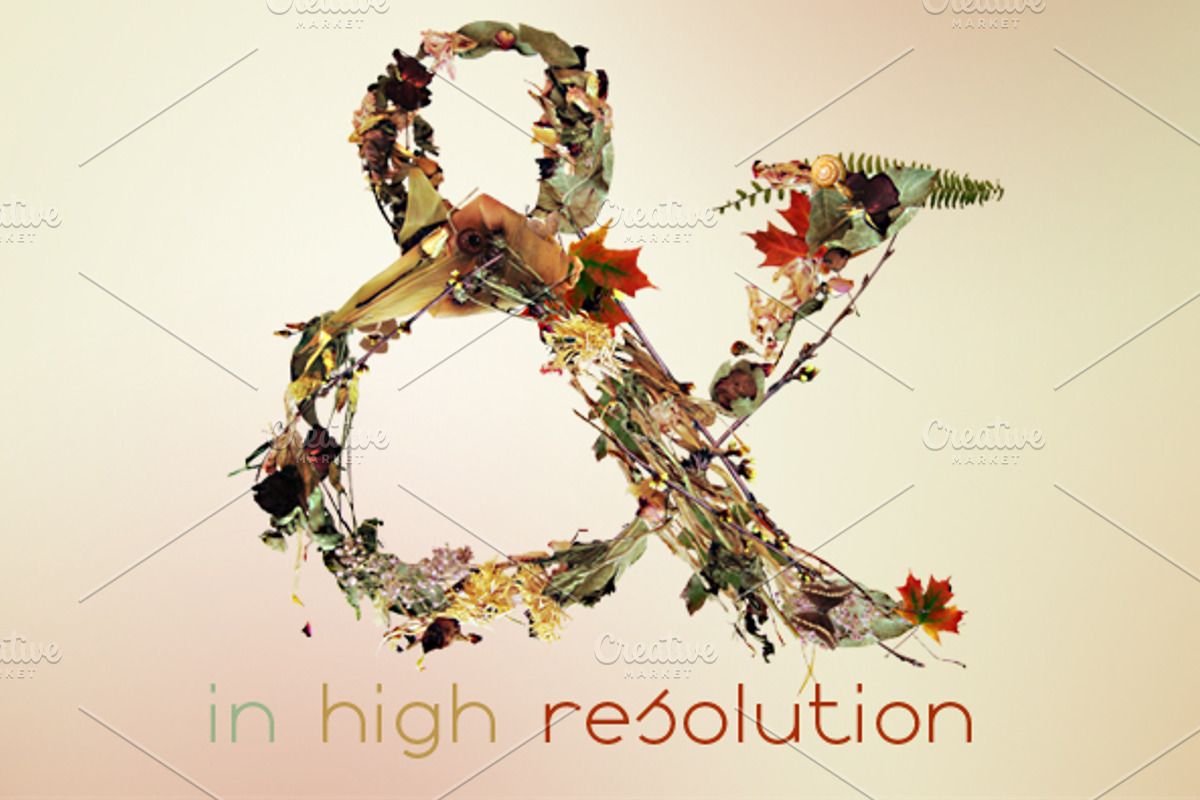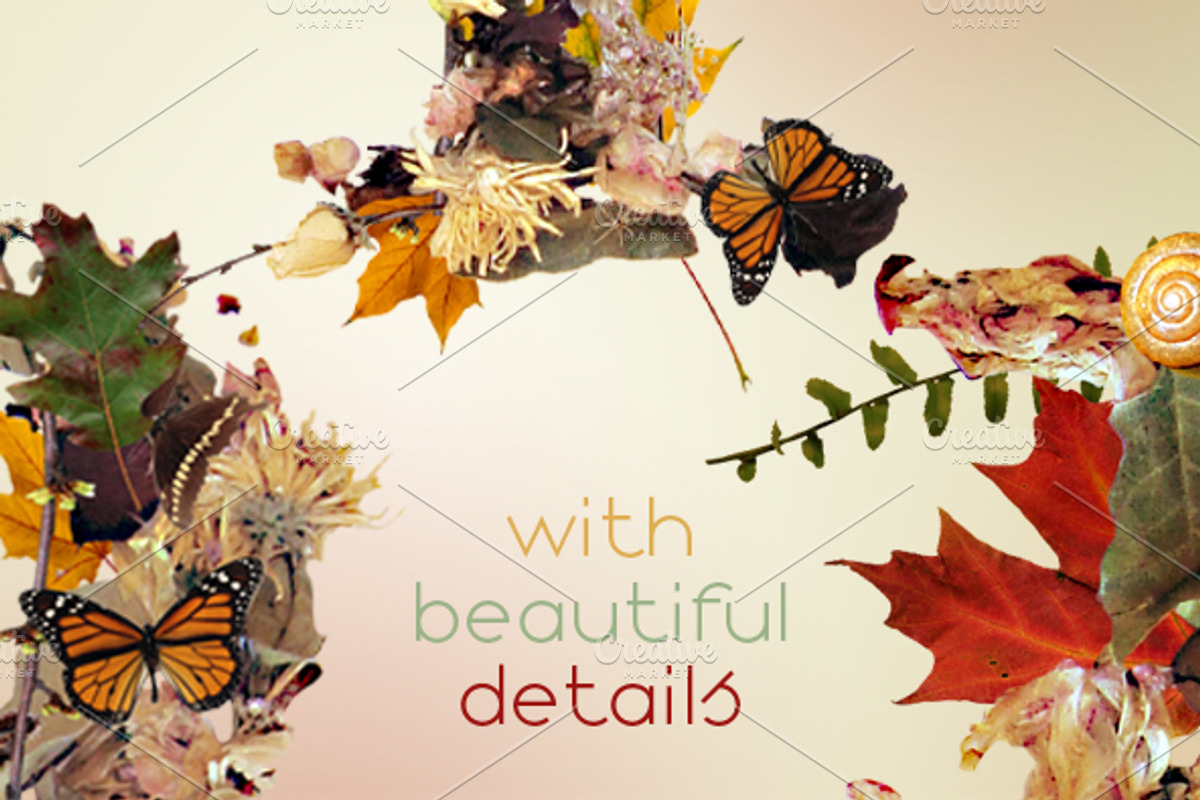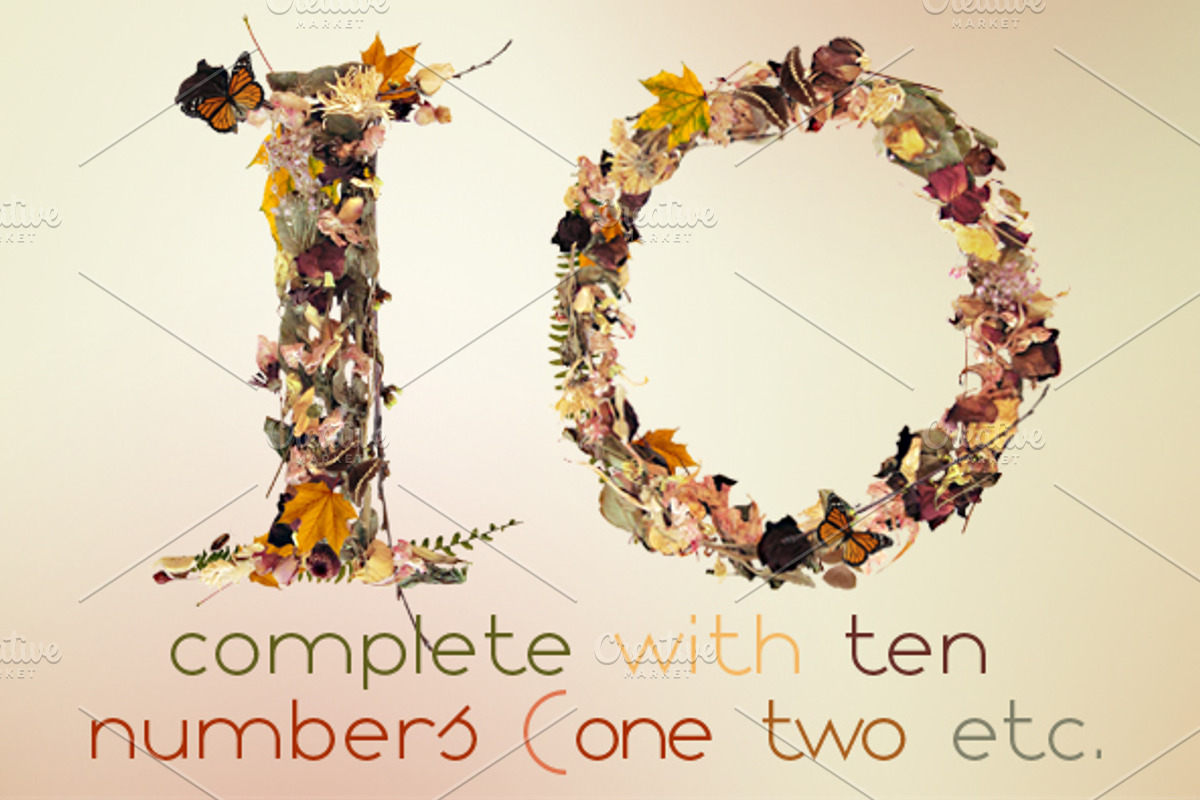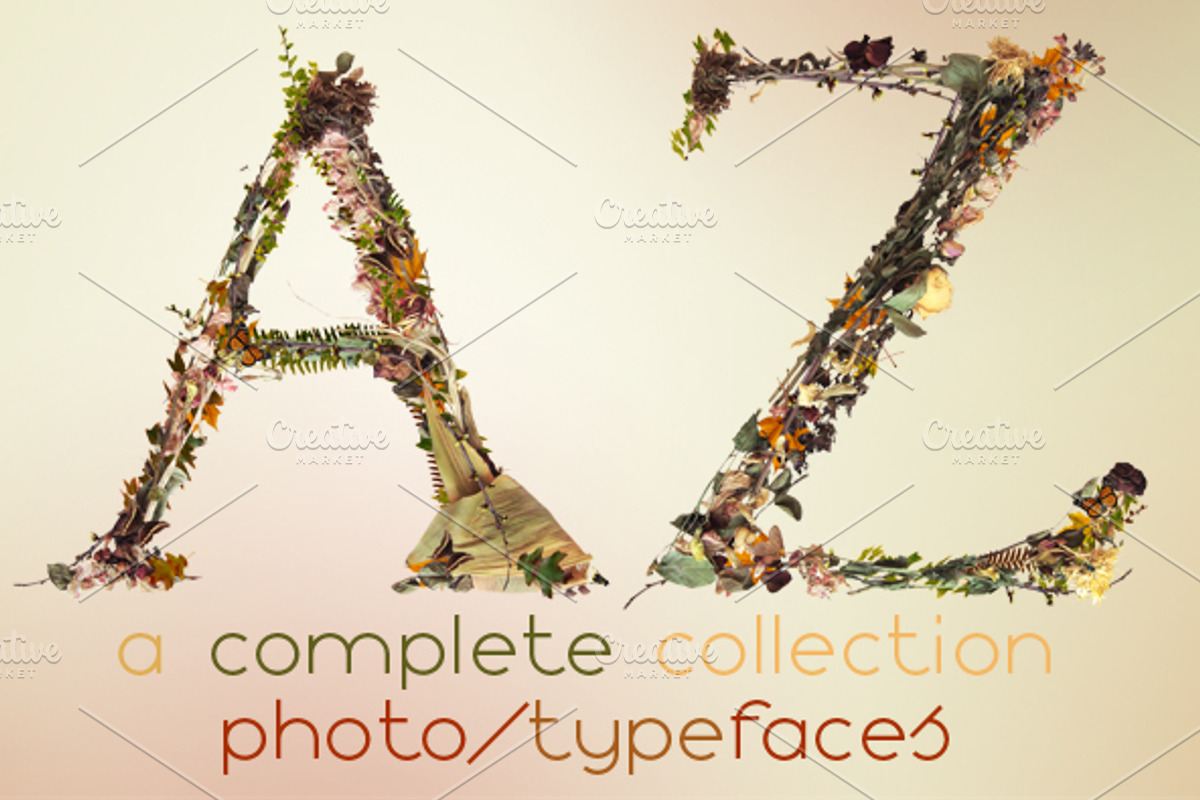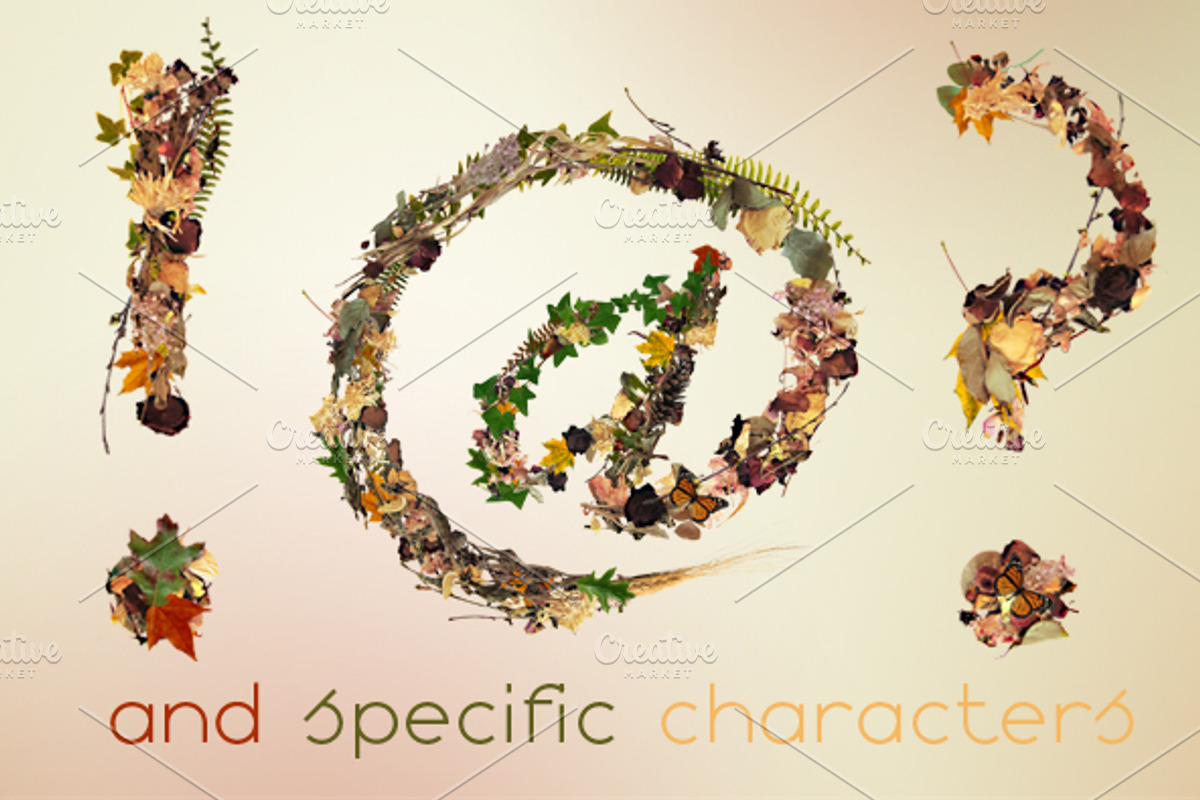
NT Fall -a multicolor photo/typeface
This flower handset is a beautiful composed, highly detailed, alphabet complete with numbers and special characters like &, @, €, %, $, !, ?, # sign, designed by Novo Typo, (typo)graphic designers from Amsterdam, The Netherlands. NT Fall makes beautiful combinations with NT Pure and NT Lily. NT Fall is a complete handset typeface collection of 240 images in high resolution RGB on a 26 x 26 cm format on 300 dpi (3072 x 3072 pixels). All images are png documents on a transparent / background.